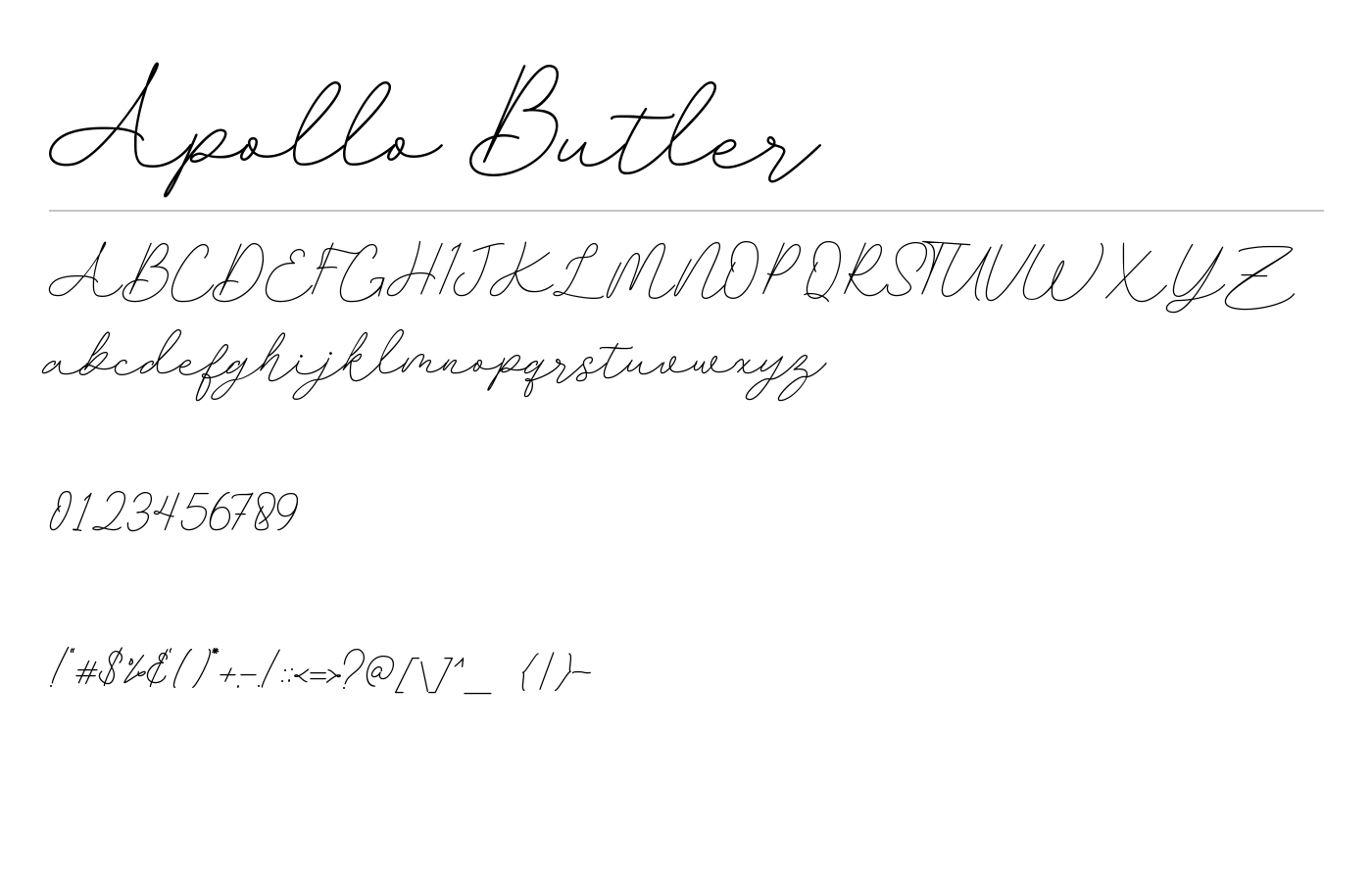
Apollo Butler is a delicate and elegant script font that features slender, flowing lines with a graceful, handwritten feel. Its light weight and fine strokes create a refined and airy appearance, making it perfect for sophisticated branding, invitations, and stylish editorial designs that seek a touch of personal charm and subtle luxury.
Apollo Butler Font
About Apollo Butler Font
| Font family | Apollo Butler Font |
| Designer | JunCreative (Muhamad Junaid) @mjart96 |